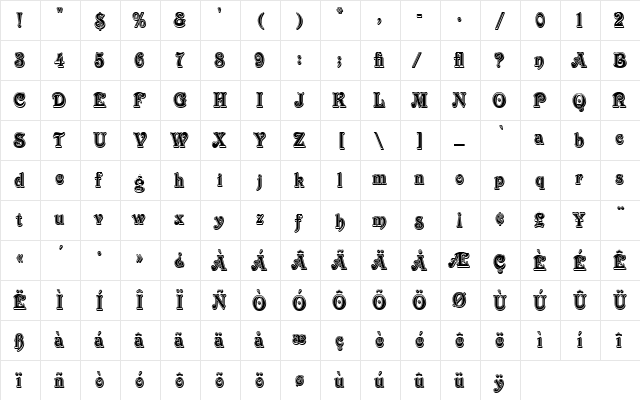
Victorian Inline Shaded LET Plain
Design Context for Victorian Inline Shaded LET Typeface
Victorian Inline Shaded LET brings ornamental detail and strong personality to headlines and identities, where visual impact matters more than quiet functionality.
Font Pairing: Pair with a clean neutral sans-serif for body copy to let Victorian Inline Shaded LET's character lead without overwhelming the composition.
Pro Tip: Use Victorian Inline Shaded LET exclusively at display sizes — it was designed to be seen, not read at length. Let a neutral companion handle body copy.